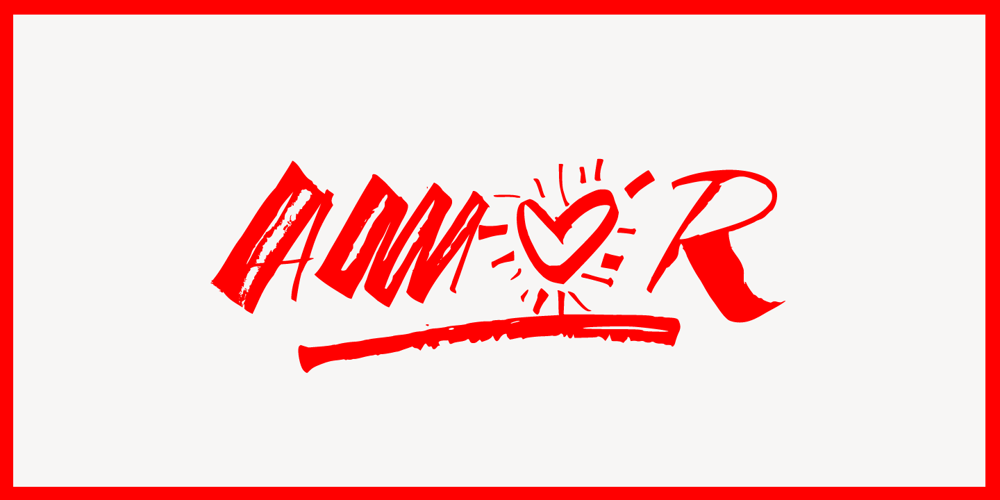
MonsterHand Font Family was designed by Giuseppe Salerno, Paco González and published by Resistenza. MonsterHand contains 1 styles and family package options. Step into the captivating world of MonsterHand, an innovative typeface that dares to challenge the boundaries of typographic design. Inspired by the art of calligraphy and meticulously crafted using a Ruling Pen, this extraordinary font unveils a mesmerizing display of expressive lettering, crazy contrast, and a captivating ink texture. Brace yourself for an enchanting journey into the enchanting realm of typographic exploration!The Ruling Pen assumes a revered position as a tool utilized for creating expressive calligraphy. Delicately employed to fashion fine ruling lines, this versatile instrument empowers calligraphers to manifest their artistic visions. However, MonsterHand elevates the Ruling Pen’s utility to unprecedented heights, harnessing its distinctive potential to birth a typeface that is truly in a class of its own.At the heart of MonsterHand lies its seamless fusion of the organic and the digital. By deftly wielding the Ruling Pen, Resistenza breathes life into the font, imbuing it with the untamed, expressive strokes evocative of handcrafted calligraphy. The result? Enthralling letterforms pulsating with energy and dynamism, endowing MonsterHand with an unmistakable personality that beckons attention.Elevating MonsterHand’s uniqueness is its audacious contrast, unmatched by any ordinary typeface. By deftly adjusting the axis of the Ruling Pen, the designer conjures exaggerated variations in stroke width, bestowing the letterforms with a playful and offbeat quality. This delightful interplay of heightened contrast captivates the eye, rendering MonsterHand highly suitable for design projects that yearn to stand out from the crowd.In addition to its captivating contrast, MonsterHand boasts an ink texture that adds depth and richness to its characters. Each stroke deftly retains the texture of the ink, unveiling a tactile quality that heightens the overall visual experience. With a resplendent authenticity, this texture imparts an organic and painstakingly handcrafted feel, a testament to the unparalleled artistry behind MonsterHand.Yet, MonsterHand’s allure doesn’t end there. Alongside this extraordinary typeface, one discovers a meticulously designed set of icons. Complementing the font’s aesthetic with finesse, these icons serve as a versatile toolkit for designers seeking to infuse their compositions with visual allure and intrigue. From playful illustrations to refined symbols, this collection enhances the possibilities and flexibility afforded by MonsterHand.Have you, intrepid designer, longed to embark on a typographic adventure? Look no further than MonsterHand, where artistry of calligraphy and the innovation of the Ruling Pen converge to deliver an unforgettable typeface experience.